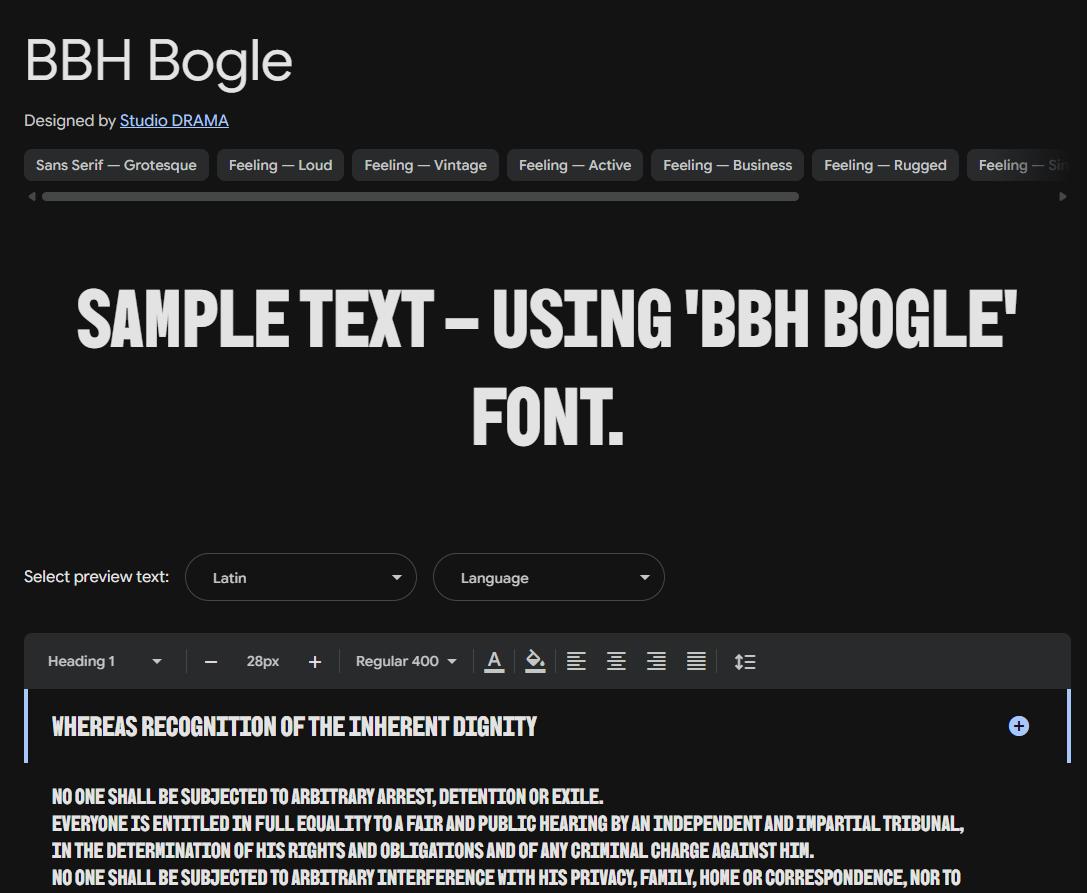
BBH Bogle, a bespoke typographic execution engineered by Studio DRAMA, operates as a singular-style powerhouse designed to anchor visual identity through its robust, humanist-influenced geometric construction. Originally developed to fortify brand equity within the retail ecosystem, the typeface synthesizes generous x-heights with optimized apertures to ensure exceptional legibility and high-speed character recognition across both analog signage and high-density digital interfaces. This proprietary asset utilizes meticulously calibrated side-bearings and distinct stroke modulation to transcend standard off-the-shelf sans-serifs, providing a unique linguistic fingerprint that translates corporate heritage into a functional, single-weight display solution. Through its deliberate glyph architecture and sophisticated kerning refinement, BBH Bogle demonstrates how a solitary font style can achieve comprehensive semantic coherence while serving as a durable vehicle for modern brand storytelling.
The BBH Bogle font family, engineered as a bespoke typographic system for global retail ecosystems, represents a sophisticated evolution of the Grotesque sans-serif tradition by synthesizing a rugged structural integrity with high-performance digital utility. Its architecture utilizes meticulously rounded terminals and open apertures to project a sincere and happy accessibility, yet it maintains a loud, active presence across diverse optical sizes that feels both vintage in its foundational industrial proportions and futuristic in its cross-platform legibility. By balancing the stoic requirements of business-oriented communication with a dynamic, rugged versatility, Bogle achieves a unique semantic harmony that bridges the gap between traditional print heritage and cutting-edge responsive UI design, ensuring every glyph resonates with a sense of reliable permanence and contemporary energy.
Due to its high x-height and generous apertures engineered for the democratic accessibility requirements of global retail ecosystems, BBH Bogle is fundamentally unsuitable for niche luxury horology or avant-garde editorial platforms that demand high-contrast stroke modulation and sharp, needle-like terminals to convey an aura of exclusivity. While the typeface excels in legibility for mass-market wayfinding and digital interface clarity, its rounded terminals and friendly humanist construction fail to provide the optical gravitas or the rigid, monospaced grid logic required for high-stakes cryptographic environments or traditionalist legal archives where a lack of corporate warmth is a prerequisite for perceived authority. By prioritizing a friendly-functional aesthetic optimized for massive consumer touchpoints, the font lacks the eccentric ligatures and structural tension found in more experimental Studio DRAMA-inflected identities, making it a poor choice for any brand strategy aimed at subverting mainstream visual conventions or maintaining a cold, austere distance from the general populace.
BBH Bogle features a friendly, rounded geometric structure characterized by open counters and soft, approachable terminals. Designed by Dalton Maag for Walmart, the typeface utilizes specific stroke modulation to ensure a humanistic quality across high-density optical displays.
BBH Bogle is strictly classified as a geometric sans-serif typeface designed for modern digital and physical branding environments. The absence of decorative serifs and the inclusion of subtle curve compensation in the joints optimize its performance for sub-pixel rendering.
The BBH Bogle family offers a versatile range of weights from Regular to Bold to accommodate various typographic hierarchies. Internal brand documentation specifies six distinct weights, each meticulously kerning-adjusted to maintain a consistent gray value across diverse CSS font-weight parameters.
The font is highly effective for body text due to its large x-height and generous character spacing which enhances reading flow. Comparative readability studies indicate that Bogle's open apertures significantly reduce cognitive load by preventing letterform crowding in low-resolution UI environments.
The typeface family includes weights and styles specifically engineered for high-impact display and headline applications within the global brand ecosystem. By utilizing tight tracking and increased stroke contrast in its heavier weights, Bogle maintains structural integrity when scaled to large-format vector output.
BBH Bogle pairs well with clean, high-contrast serif fonts or more traditional grotesque typefaces to create a balanced visual hierarchy. Designers often utilize font-stacking techniques involving Bogle for UI and a transitional serif for editorial content to maximize typographic contrast via varying cap-height ratios.
The font maintains exceptional legibility at small sizes thanks to its clear letterform definition and wide apertures that prevent ink-clogging or pixel blurring. Its high legibility is technically supported by a generous x-height-to-cap-height ratio, which preserves the distinctiveness of glyphs like 'a', 'e', and 's' at 8pt resolutions.
BBH Bogle provides comprehensive support for a broad spectrum of Latin-based languages and international diacritics required for global commerce. The character set includes advanced OpenType features and extended glyph sets that accommodate the Unicode standards required for globalized e-commerce localization.
While designed primarily for digital interfaces, BBH Bogle excels in high-resolution print due to its precise geometric construction and clean outlines. The font's vector paths are optimized for 2400 DPI output, ensuring that the smooth Bézier curves of its rounded terminals remain artifact-free on physical substrates.
The x-height of BBH Bogle is notably tall, which allows for increased internal white space within the lowercase glyphs. This vertical proportion, combined with a positive side-bearing strategy, ensures that the typeface resists character collisions during rapid scanning by human eyes or OCR algorithms.